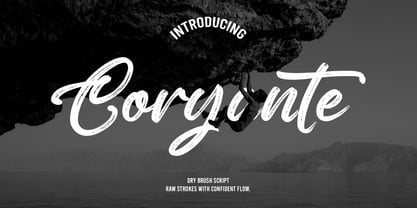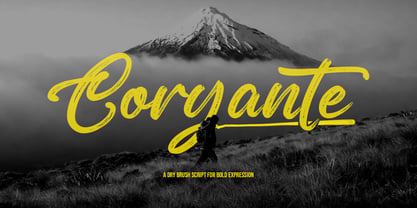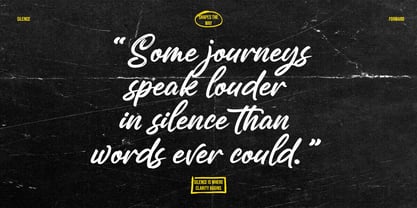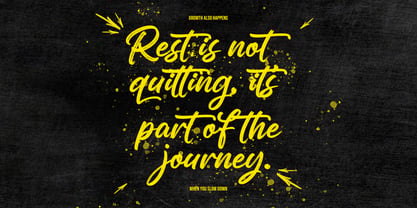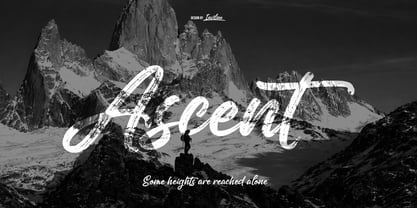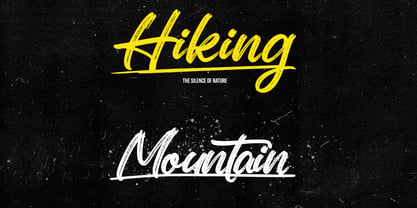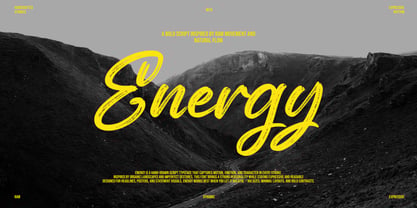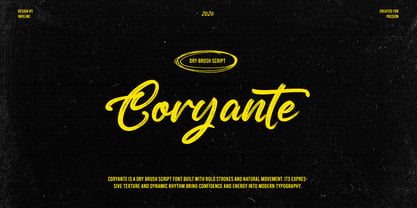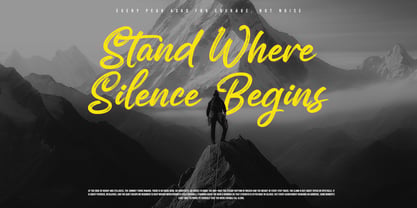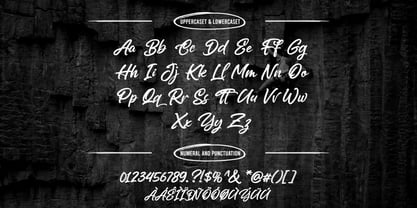
Coryante Script
von Inviline
Die Schriftfamilie Coryante Script wurde von Virgiawan Listanto entworfen und von Inviline veröffentlicht. Coryante Script enthält 1 Stile. Mehr über diese Familie
Coryante is a striking dry brush script typeface defined by its bold strokes, raw textures, and natural movement. Drawing inspiration from the expressive rhythm of hand-drawn lettering, this font is perfect for projects that require energy and boldness. Whether you're designing a statement poster, a dynamic logo, or typographic artwork, Coryante delivers. Each letterform captures the imperfections and vitality of authentic brush strokes, resulting in a typeface that is both powerful and artistic. Coryante shines in larger sizes and layouts that prioritize contrast and clarity, making it an excellent choice for adventure-themed branding, streetwear, active lifestyle projects, or any design that aims for visual impact.
Designer: Virgiawan Listanto
Foundry: Inviline